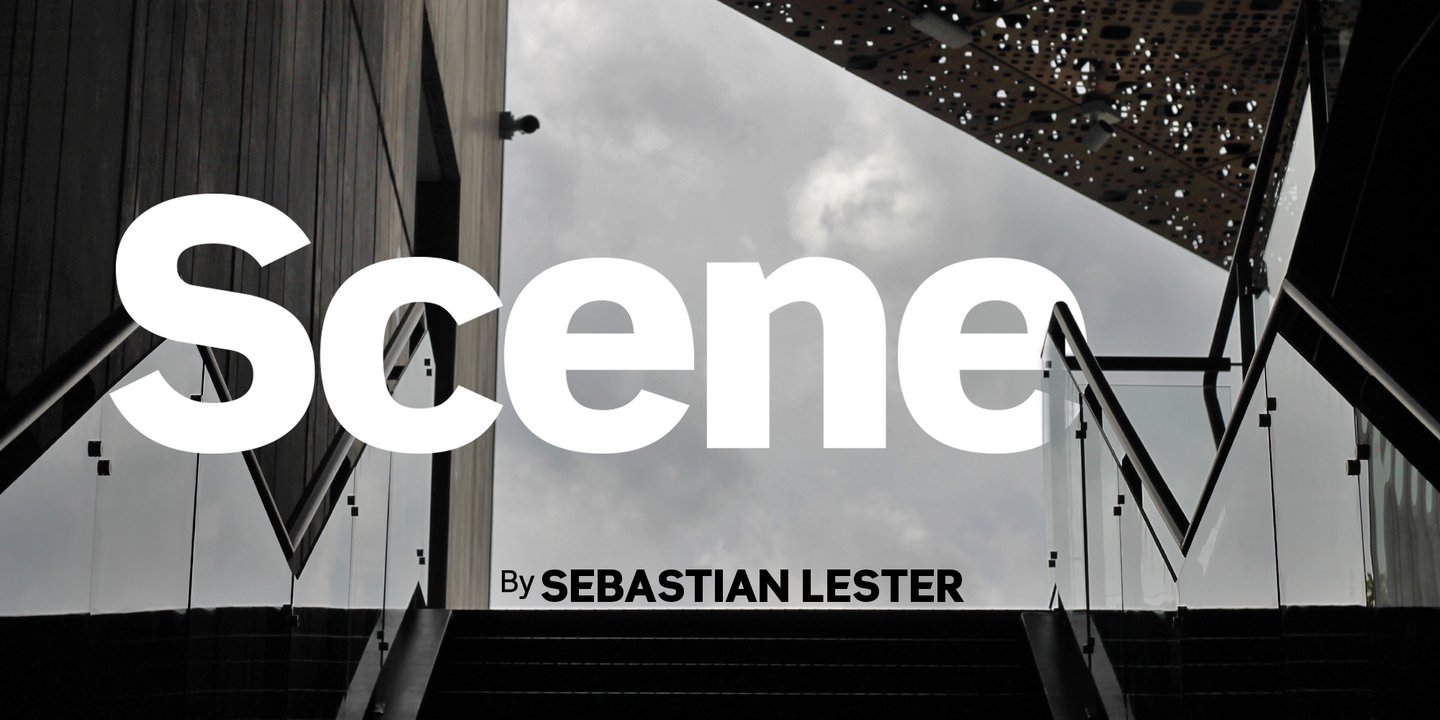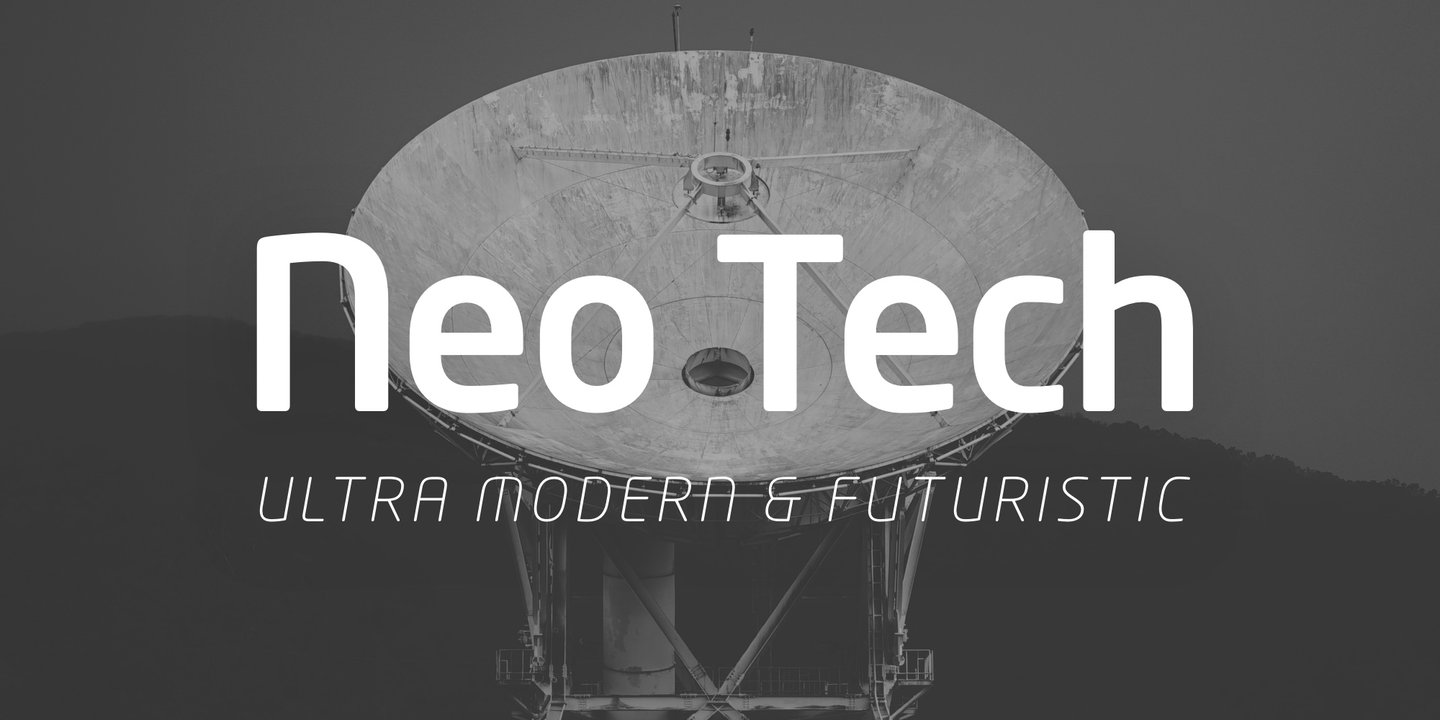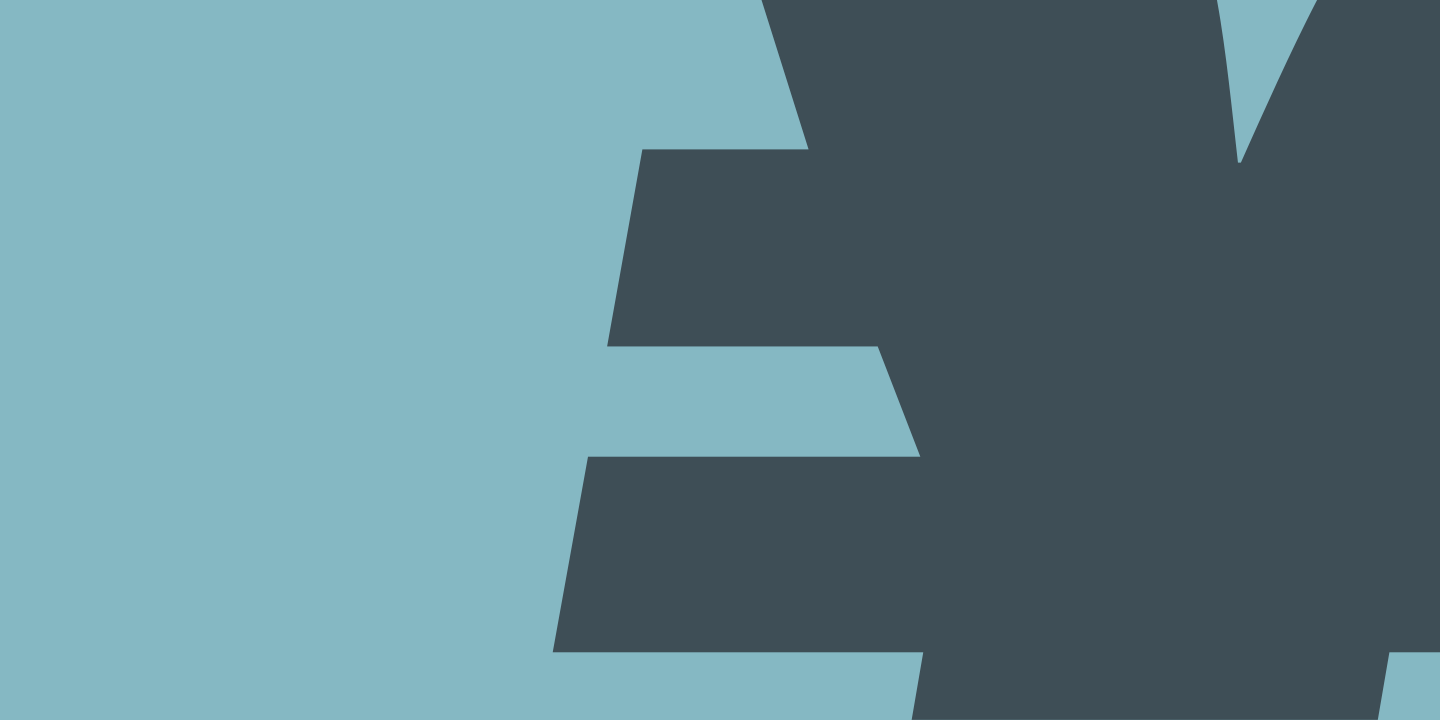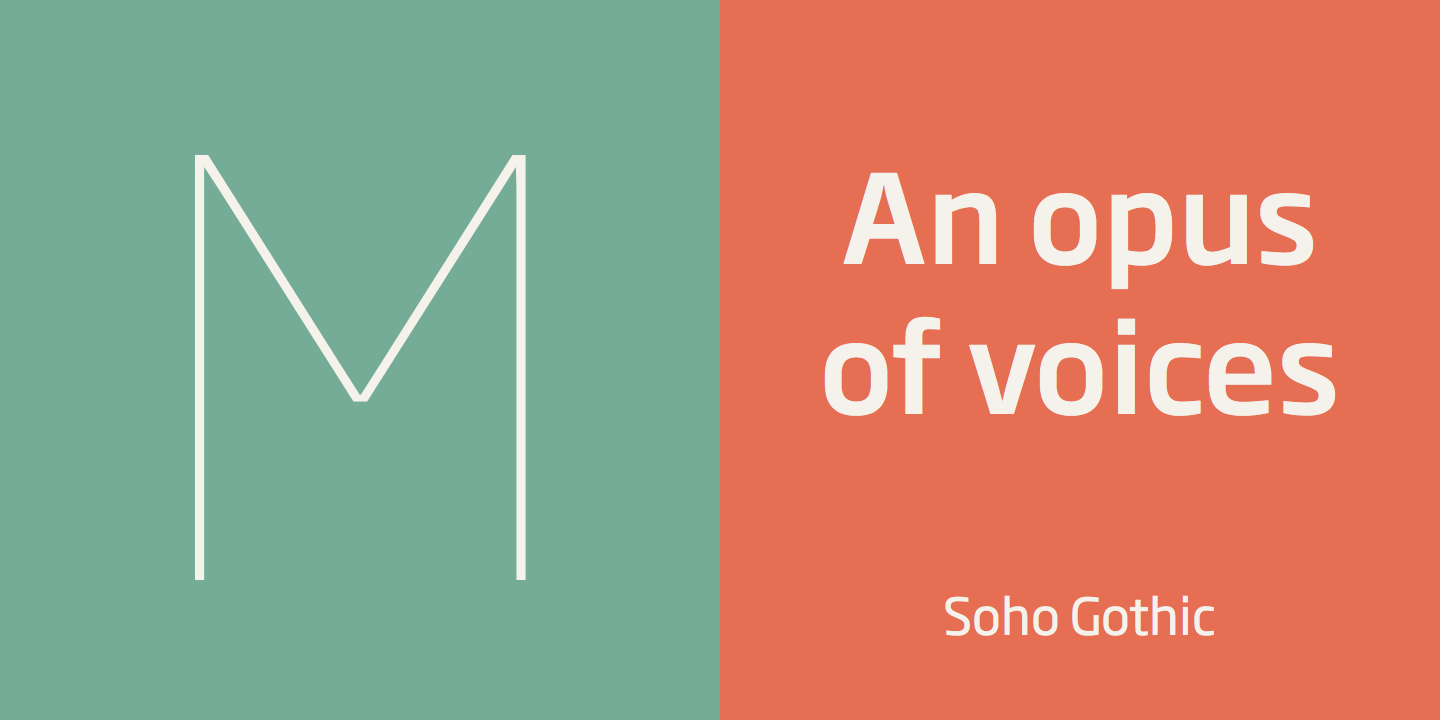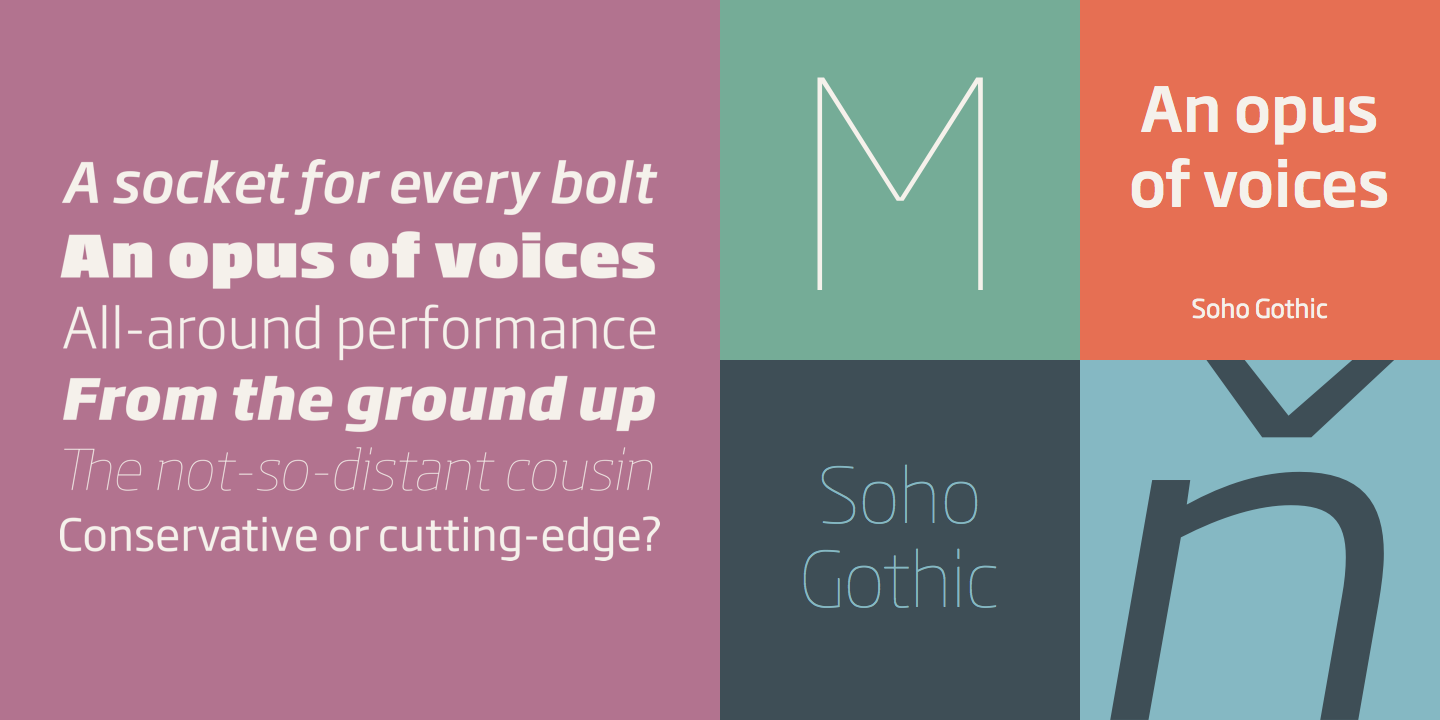
Sebastian Lester
British designer, trained at Central Saint Martins College of Art and Design, London. Early type designs released with [T-26] and GarageFonts. Currently designing custom and retail type at Agfa-Monotype, notably industrial sans families: Scene, Neo Sans, and Neo Tech.